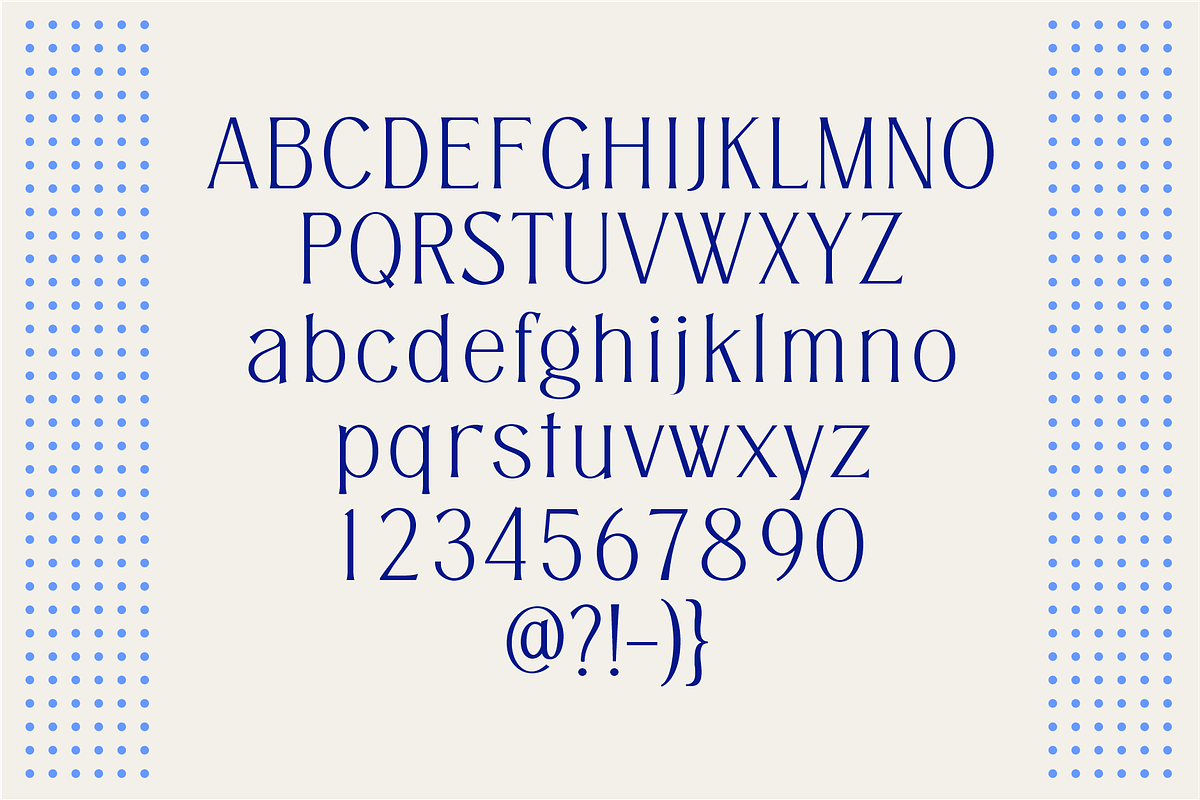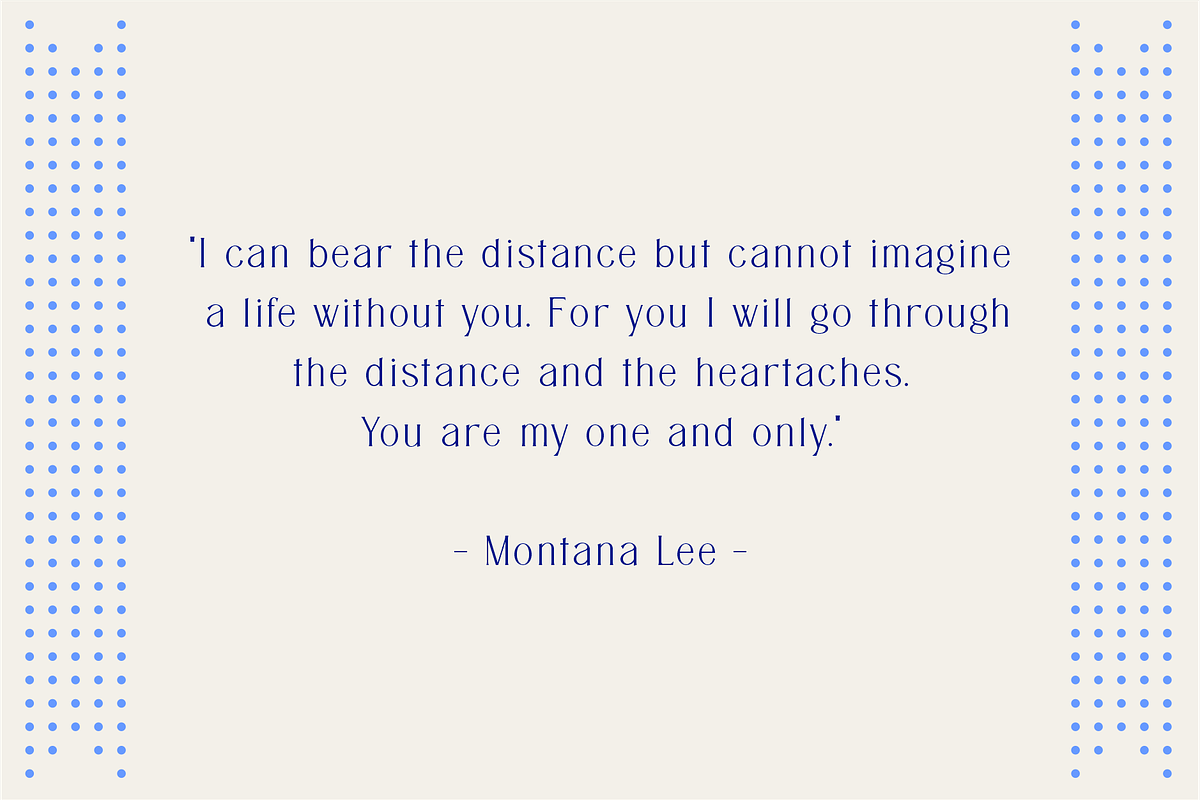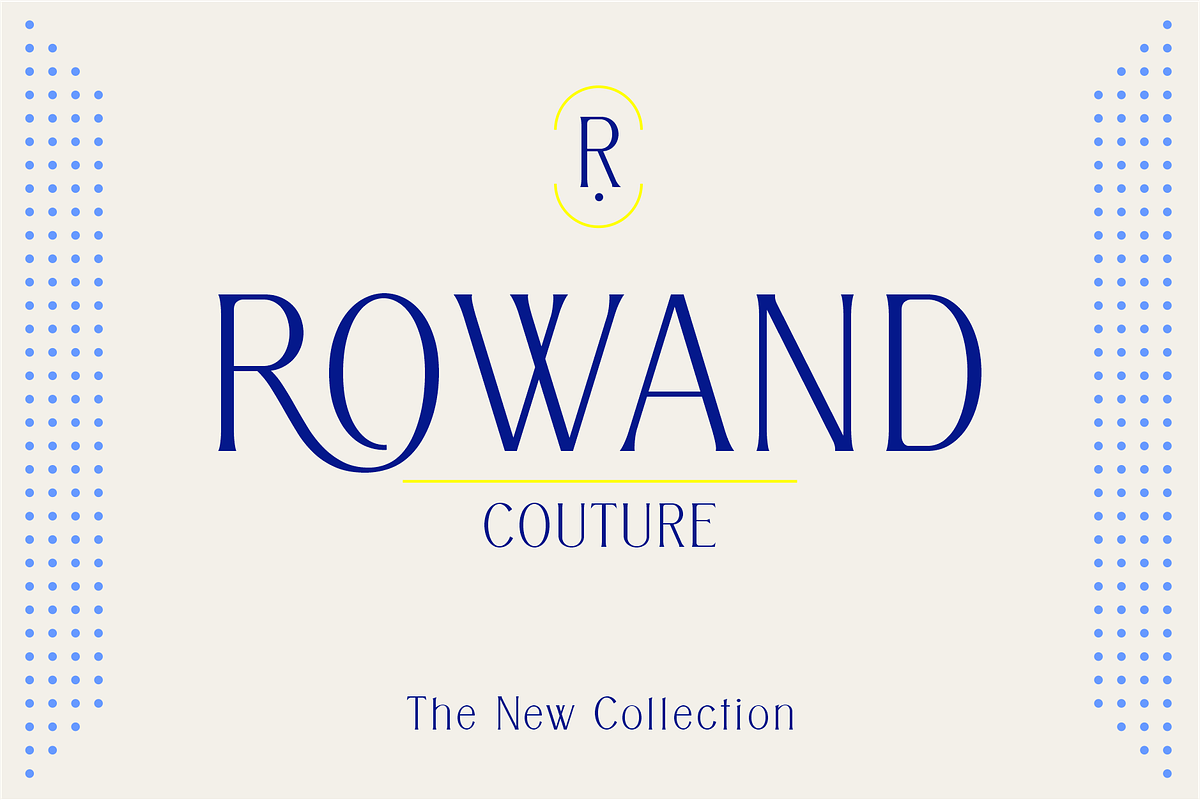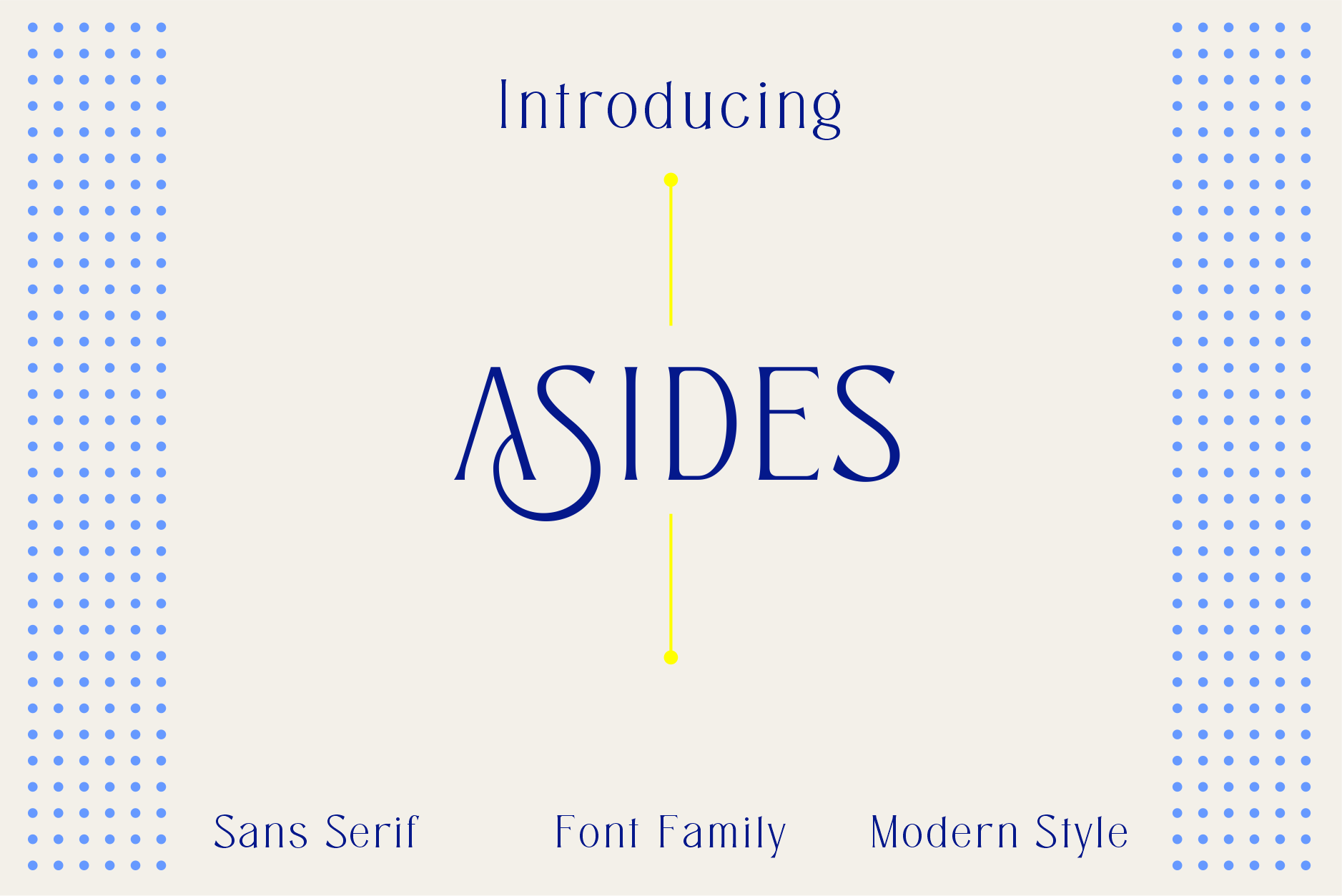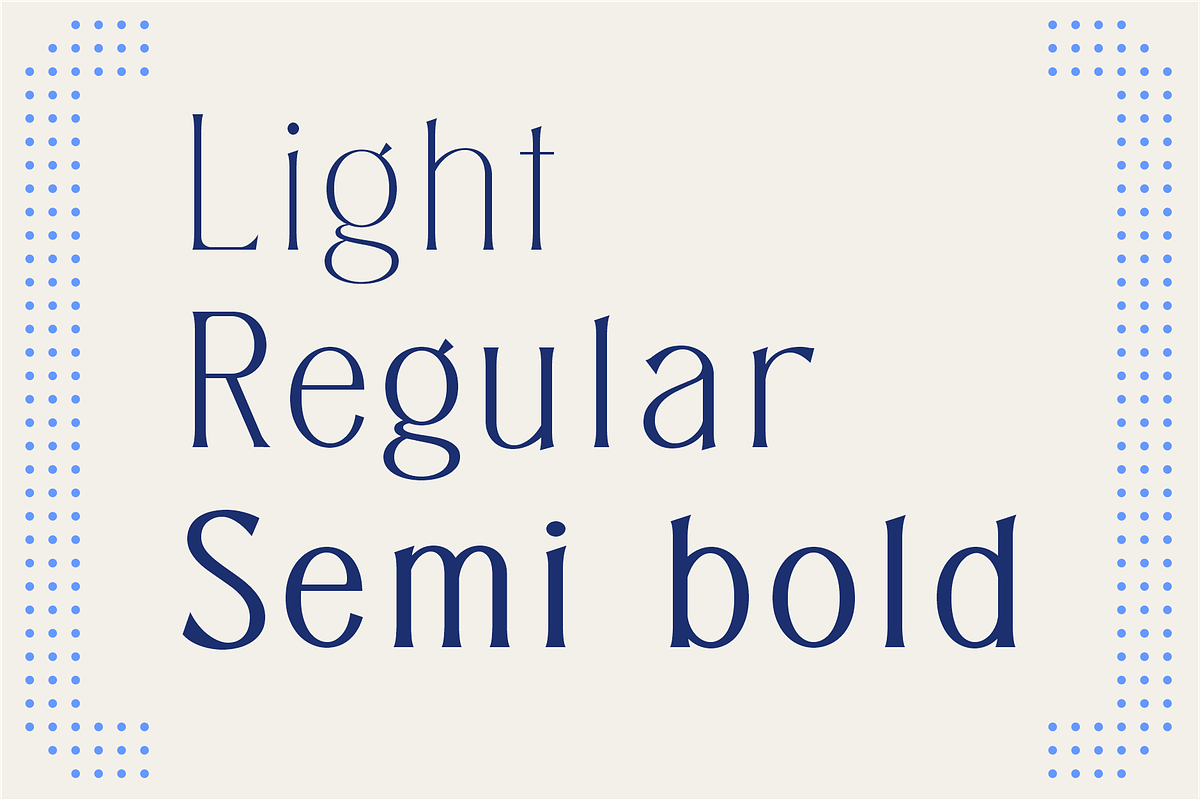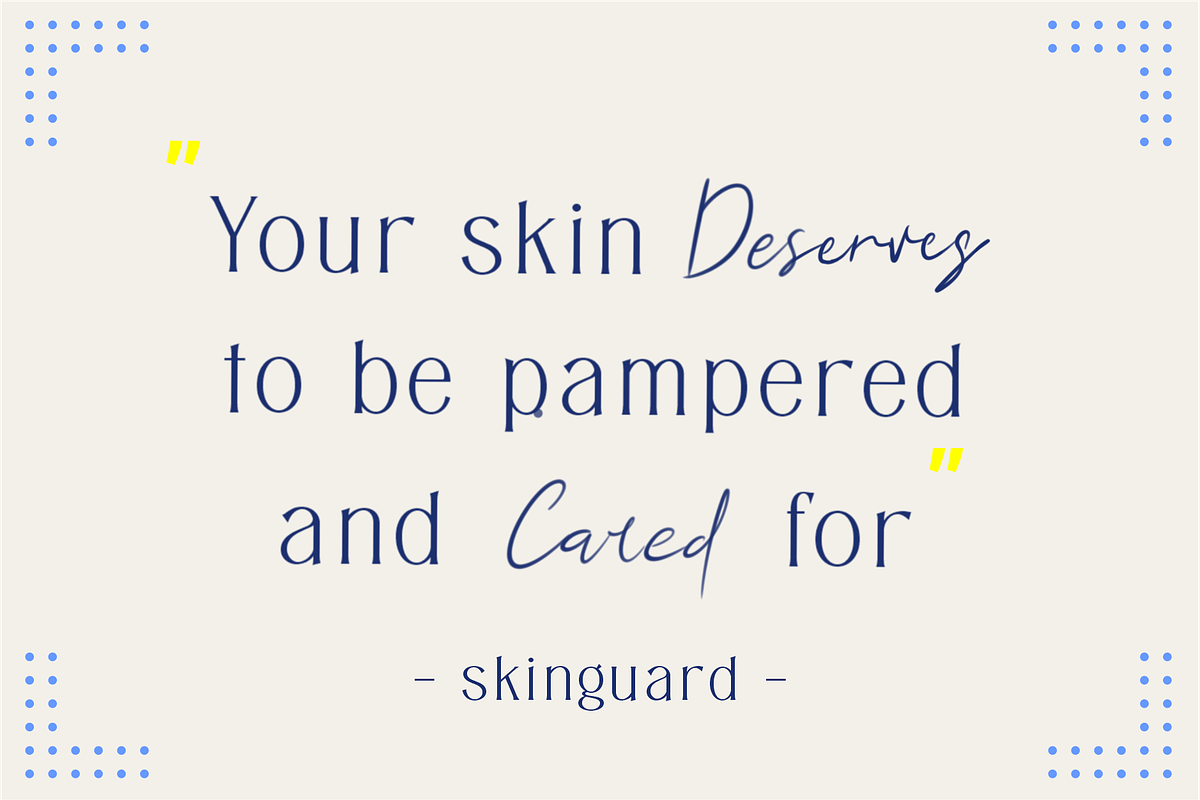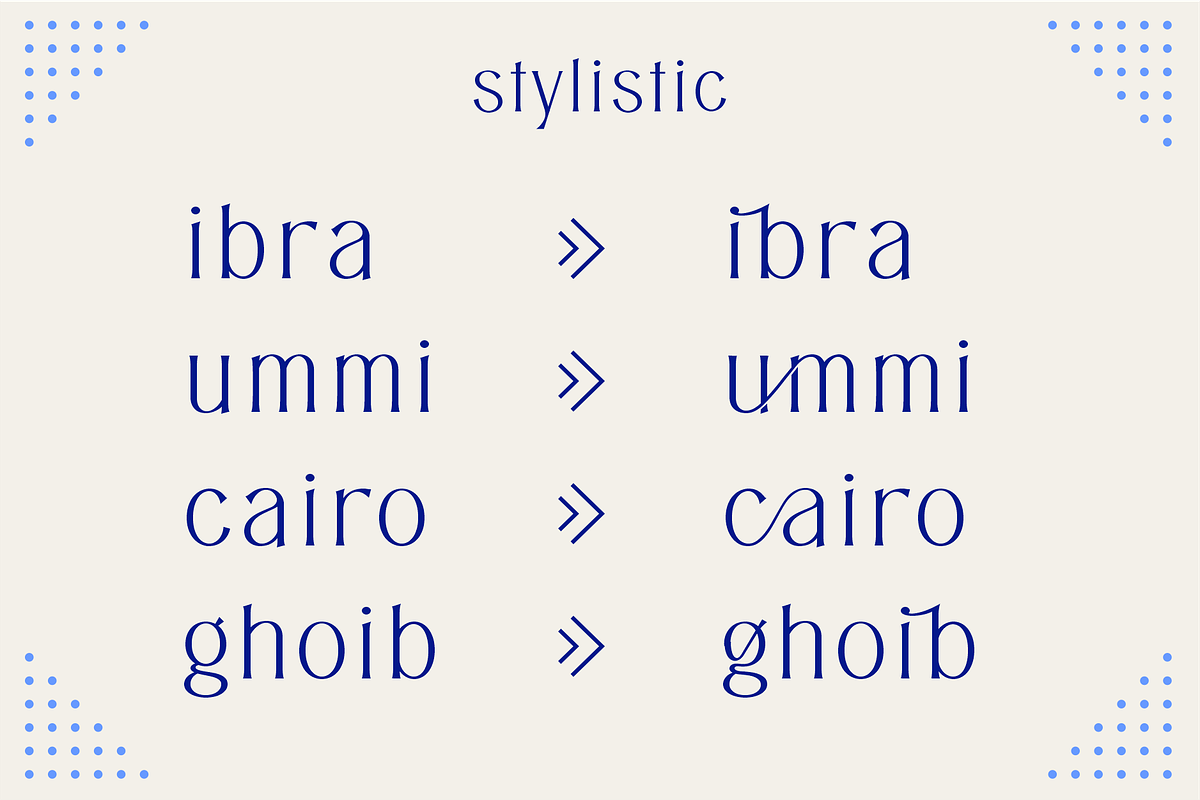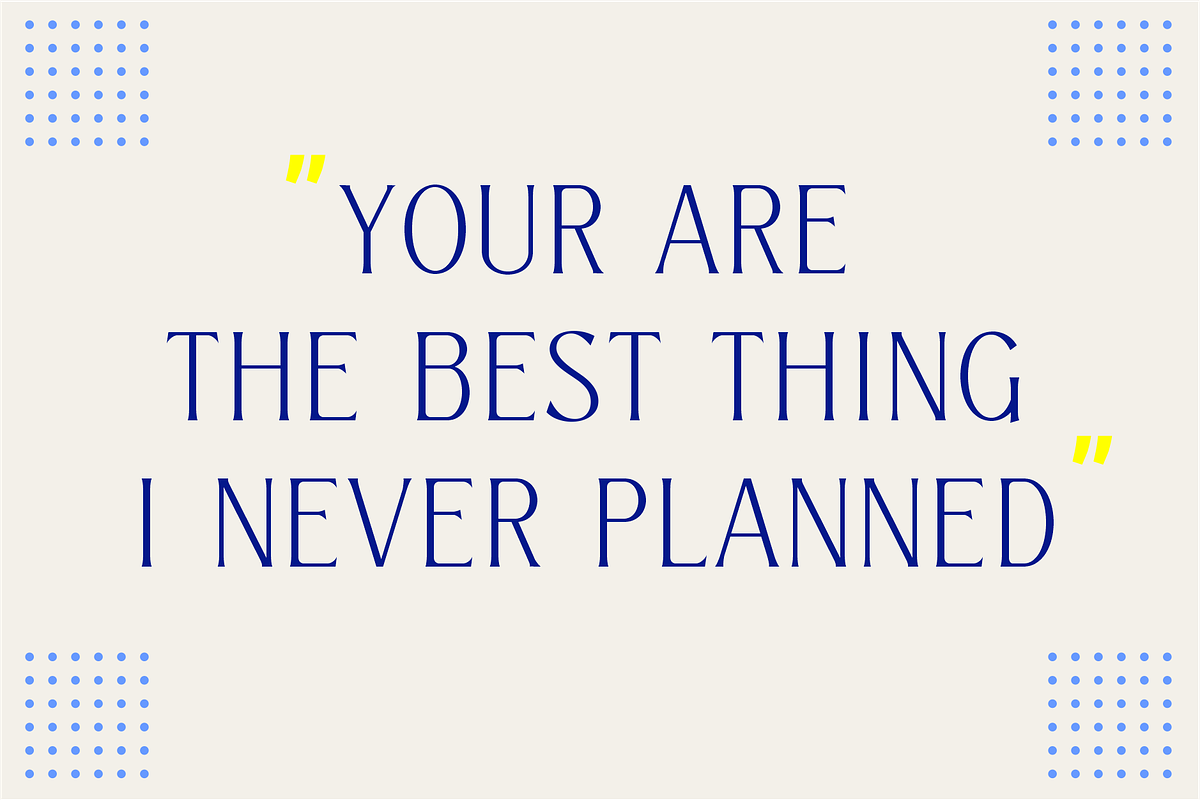
Asides - Family Serif Font
ASIDES is a stylish and elegant serif font that exudes elegance and class. This font was particularly crafted for those who need a beautiful and refreshing look to their designs.